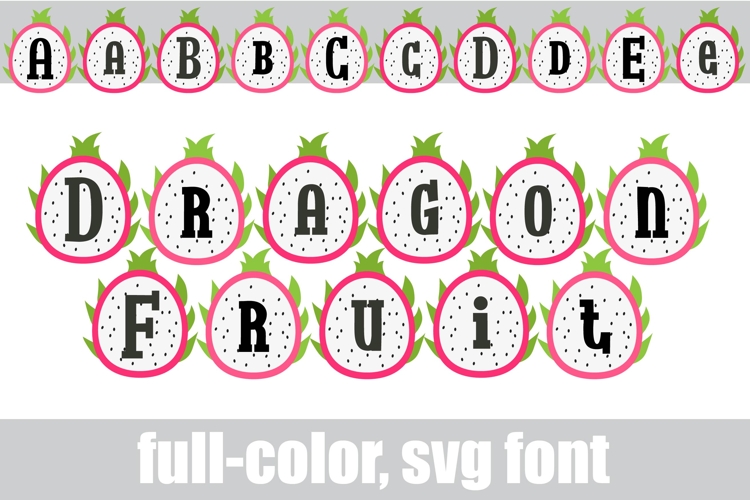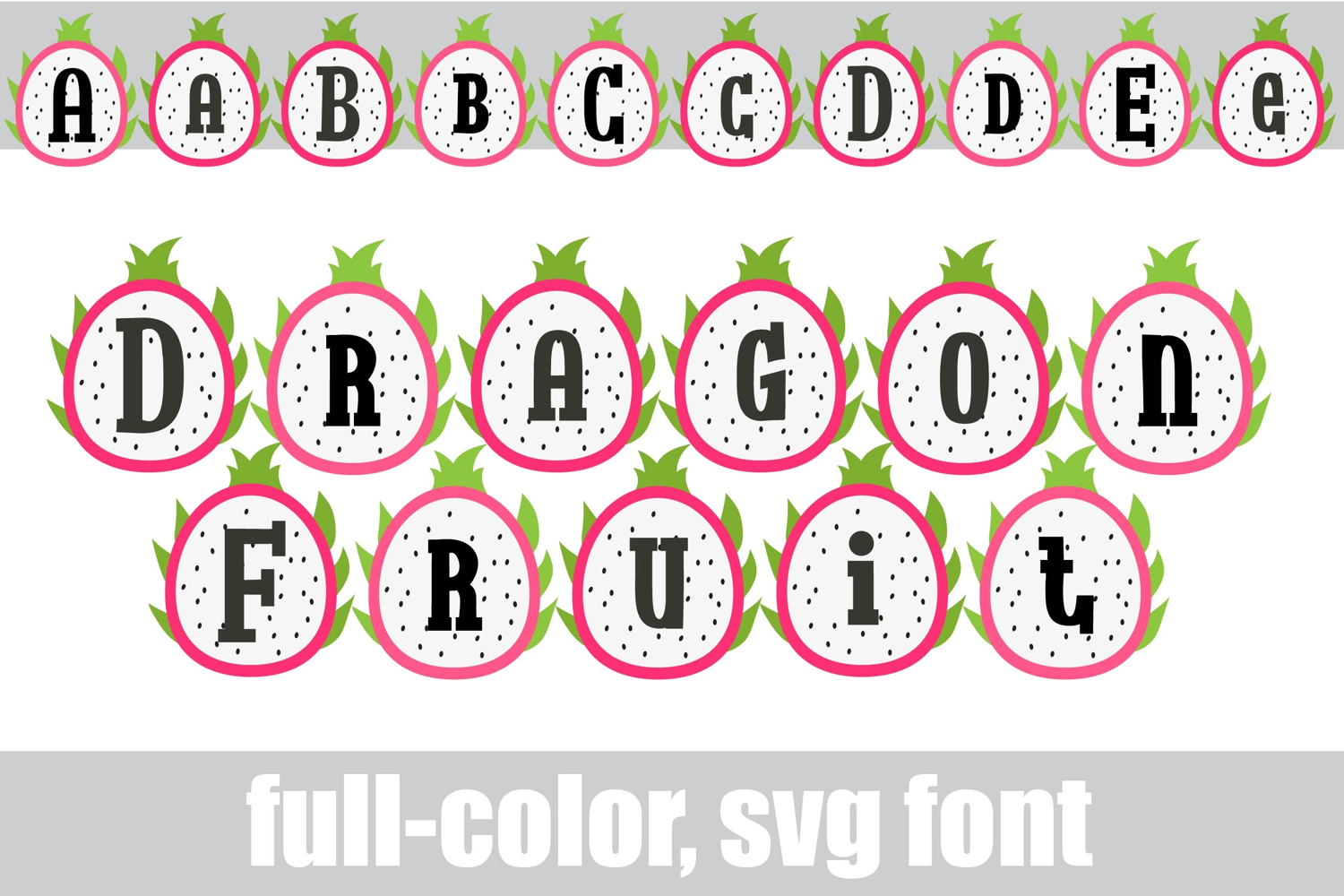
Dragon Fruit Color Font
This hand-crafted font is a full-color font featuring dragon fruit. There is an alt case of each letter with a different color combination.